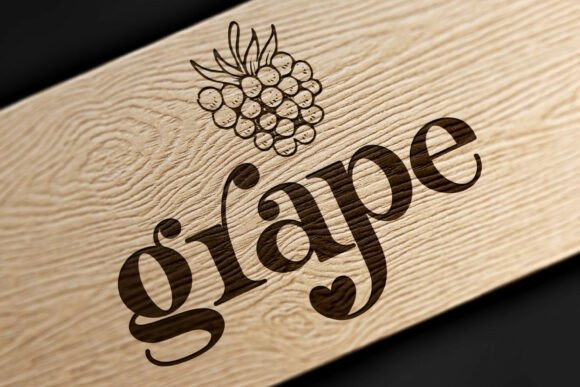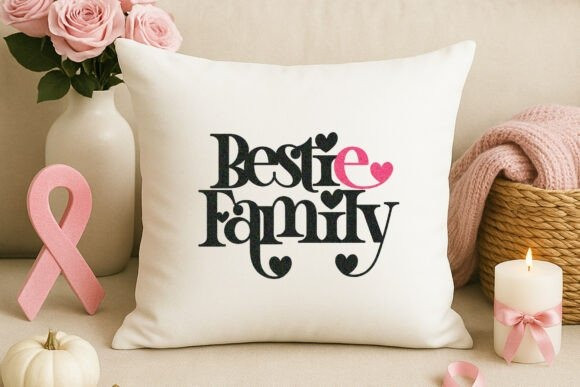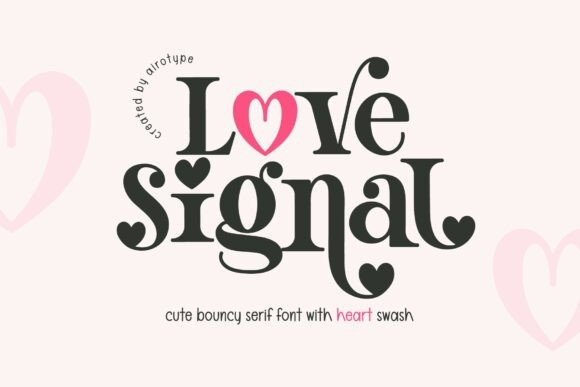
Love Signal Font
Love Signal Font is an incredibly charming and cute bouncy serif font, bursting with personality and featuring unique heart-shaped swashes that bring pure joy to any design.
This delightful Love Signal typeface is characterized by its playful, slightly irregular baseline and thick, curvaceous serifs that give it a friendly, almost balloon-like appearance. The integrated heart swashes, and glyphs make the Love Signal font instantly recognizable and perfect for Valentine’s Day, feminine branding, children’s products, wedding stationery, and any project focused on romance and sweetness.
Its strong visual identity and unique, decorative elements make this bouncy Love Signal serif typeface a perfect headline or display font when a dash of adorable, heartwarming charm is required.